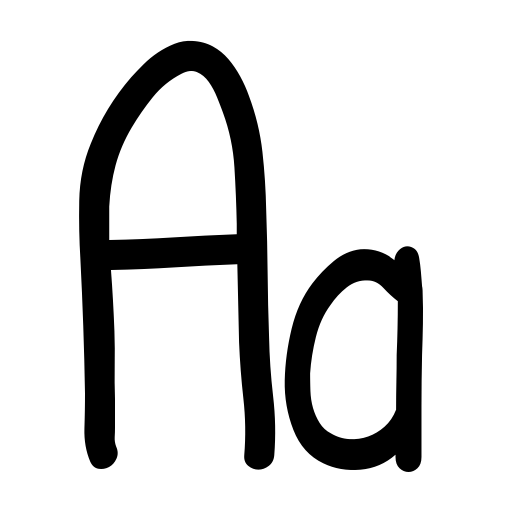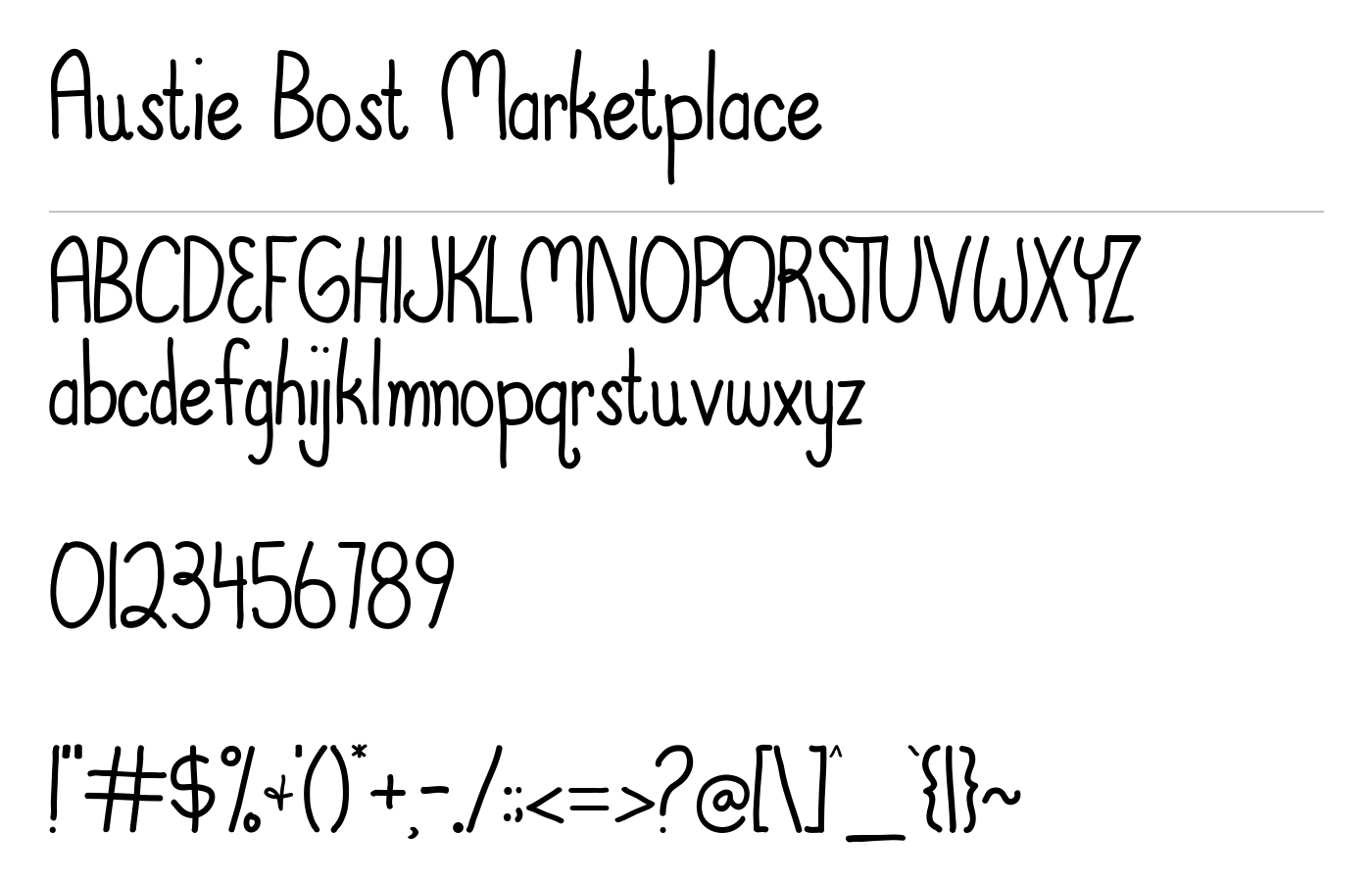
Austie Bost Marketplace is a playful and quirky sans serif font with a hand-drawn feel, featuring tall, narrow letterforms and a light weight that gives it an airy and informal appearance. Its uneven strokes and whimsical details make it perfect for projects that want to convey creativity and approachability, such as children’s books, casual branding, or artistic packaging. This font works best in headlines or short text where its unique personality can shine without sacrificing legibility.
Austie Bost Marketplace Font
About Austie Bost Marketplace Font
| Font family | Austie Bost Marketplace Font |
| Designer | Austin Owens |